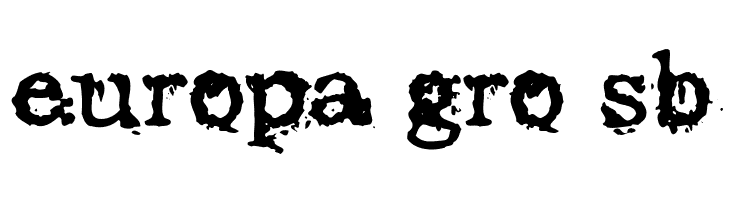
( Fonts by Rob Villareal )
A bold, distressed font with a rebellious, grunge aesthetic.
( Fonts by Hans Gerhard Meier - www.fontourist.com Commercial Fonts Font )
A bold, gothic-style font with intricate details and dramatic curves.